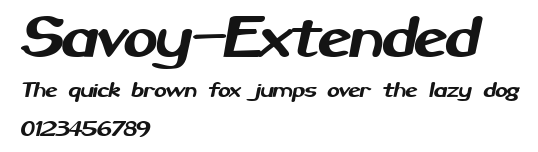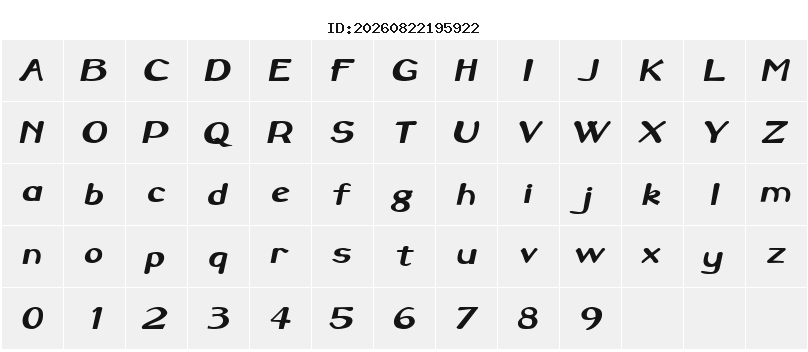
• Font Name: Savoy-Extended
• Font ID: Macromedia Fontographer 4.1 SavoyExtended Bold Italic
• Full Font Name: Savoy-Extended Bold Italic
• Version: 1.0/1995: 2.0/2001
• PostScript Name: Savoy-ExtendedBoldItalic
About Savoy-Extended.ttf
Savoy-Extended.ttf is a modern, elegant sans-serif font designed for ultimate readability and visual harmony. Perfect for branding, headlines, web design, and print materials.